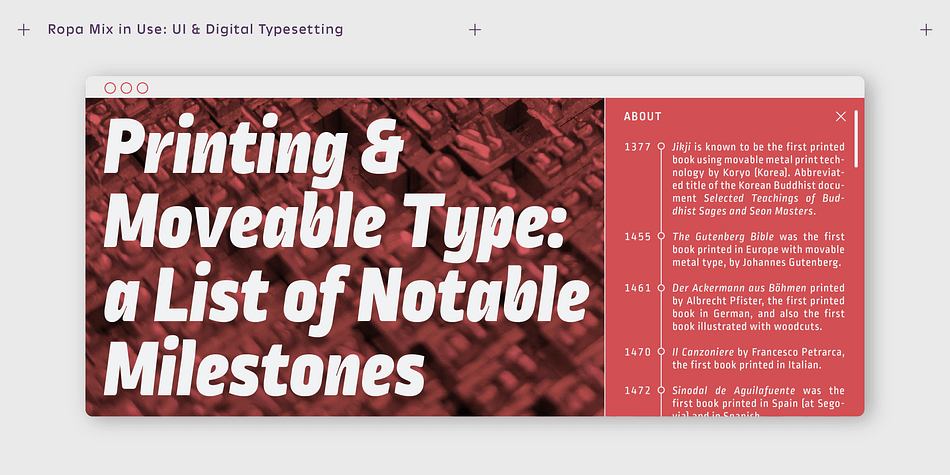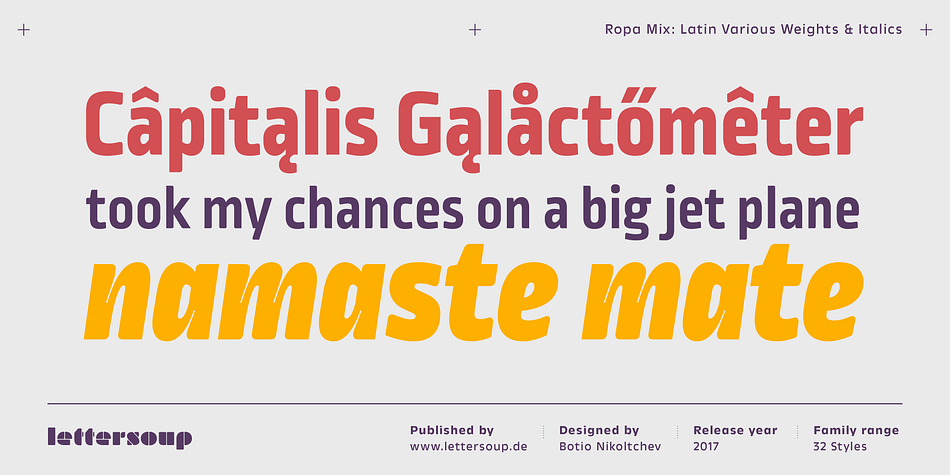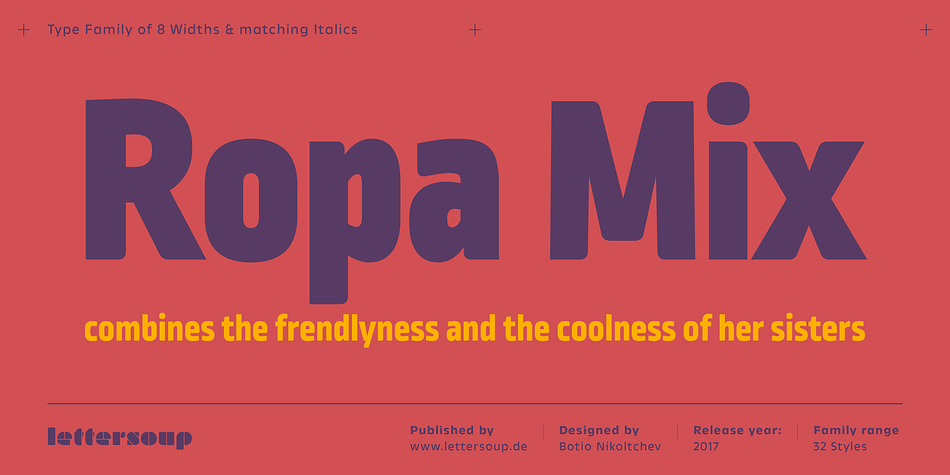
Designed by Botio Nikoltchev, Ropa Mix Pro is a sans serif and display sans font family. This typeface has thirty-two styles and was published by Lettersoup.
Ropa Mix Pro is the third charming sister of the Ropa Type System. While Ropa Sans Pro is cool and somewhat technical - almost like brushed steel and Ropa Soft Pro warm and friendly - closer to smoked wood, the new Ropa Mix Pro family combines the characteristics of its both older sisters.
The medium weights of Ropa Mix Pro serve well in body text, while the thinner and bolder styles make an excellent choice for headlines. Fonts from the Ropa Mix, Soft and Sans families can be used together to create a richer mix, and the humanistic italics round up the typographic system with additional quirky flavor.
Ropa Mix Pro provides advanced typographical support with features such as case-sensitive forms, fractions, super and subscript characters, and stylistic alternates. It comes with a complete range of old style and lining figures, which are in tabular and proportional widths. In addition to an extensive coverage of Latin-based languages, Ropa Mix Pro provides essential support for the Cyrillic and Greek writing systems. It is manually hinted and optimized for screens, hence it has an excellent web-font, eBooks or Apps performance.